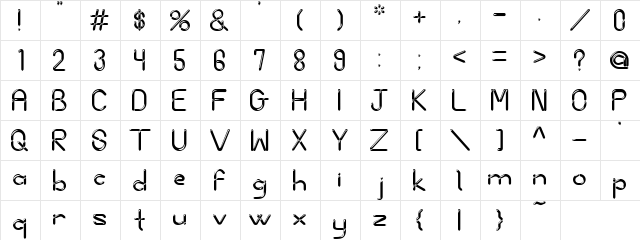
AC2-Balloons1 Regular Font Preview
AC2-Balloons1 Regular
Design Context for AC2-Balloons1 Typeface
AC2-Balloons1 takes a measured approach to typography — its balanced proportions and neutral character make it a reliable workhorse for both digital and print work.